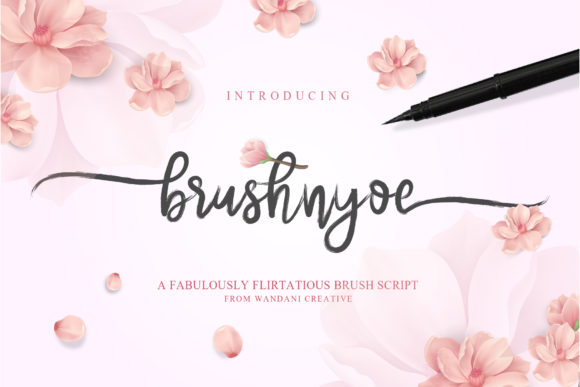
Brushnyoe Font
Introducing Brushnyoe Font: The Exquisite Script Typeface for Unparalleled Designing
Brushnyoe Font, the brainchild of Beautypes, stands as a testament of beauty, versatility, and timeless elegance. Crafted to perfection, this font exudes an aura of sophistication and charm, making it an ideal choice for various design projects.
With its sweeping curves, delicate lines, and captivating glyphs, Brushnyoe Font adds a touch of refinement to any design. The fluidity and grace of its characters create an enchanting visual appeal, leaving an enduring impression on the beholder.
Embrace the Allure of Brushnyoe Font:
Unleash Your Creativity:
Brushnyoe Font empowers you with endless creative possibilities, allowing you to craft designs that resonate with your audience. Experiment with different styles, colors, and layouts to create unique and captivating visuals.
Convey Elegance with Every Stroke:
Brushnyoe Font's delicate strokes and intricate details convey a sense of elegance and sophistication, making it an ideal choice for projects that demand a formal and classy aesthetic.
Make a Lasting Impression:
In a world clamoring for attention, Brushnyoe Font helps you make a lasting impression with your designs. Its mesmerizing characters and captivating flow command attention, leaving a lasting impression on your audience.
Embrace Versality Like Never Before:
Brushnyoe Font's versatility extends beyond design genres, making it suitable for a wide range of projects. From personal branding to packaging design, this font seamlessly adapts to any concept, ensuring satisfaction and exceptional outcomes.
Craft Timeless Masterworks:
With its enduring beauty and timeless appeal, Brushnyoe Font allows you to create timeless masterpieces that transcend trends and fads. Let your designs leave an enduring impression, captivating hearts for generations to come.